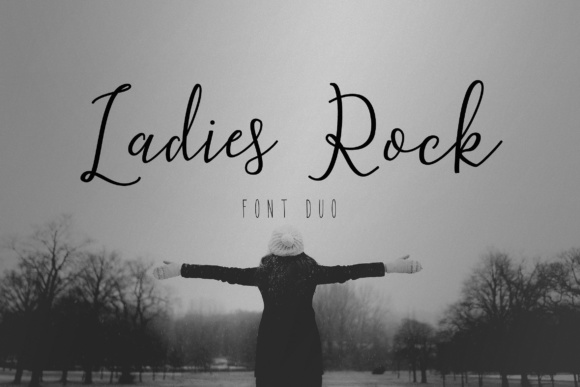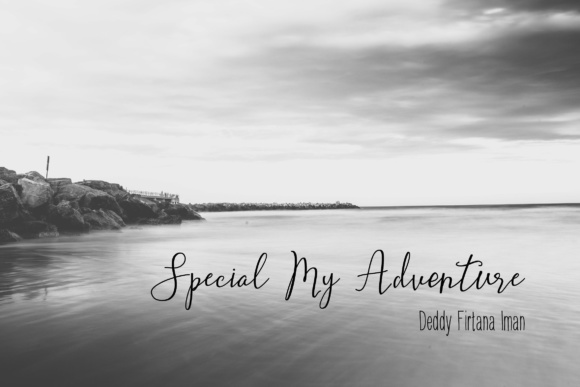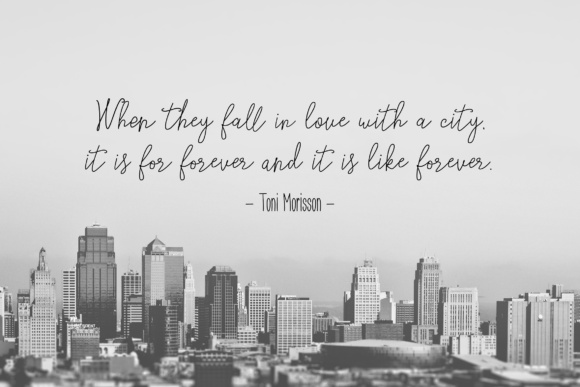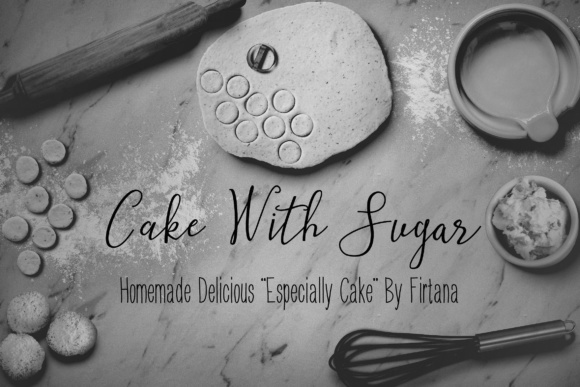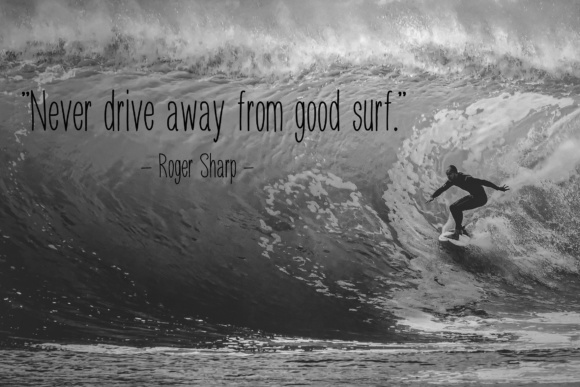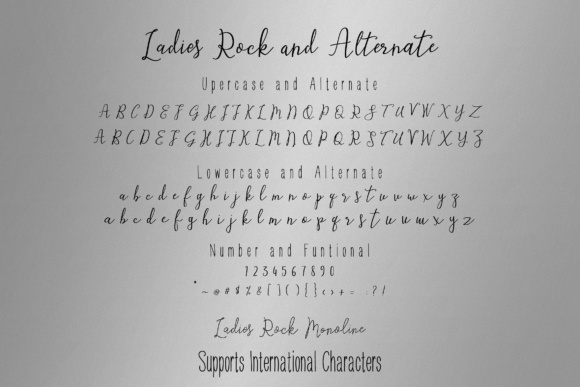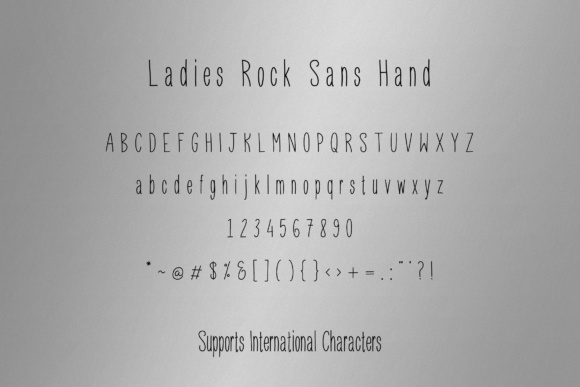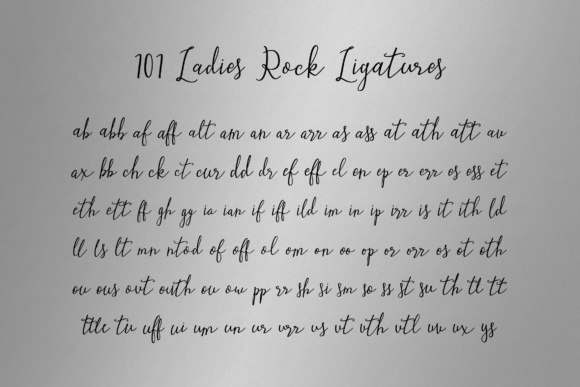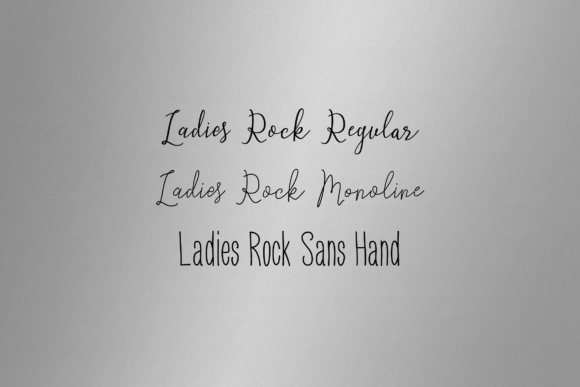
Ladies Rock Duo Font
About Ladies Rock Duo Font
The Ladies Rock is a striking yet elegant typeface. It comes in three styles which give you the opportunity to create an unique design every time you use it.